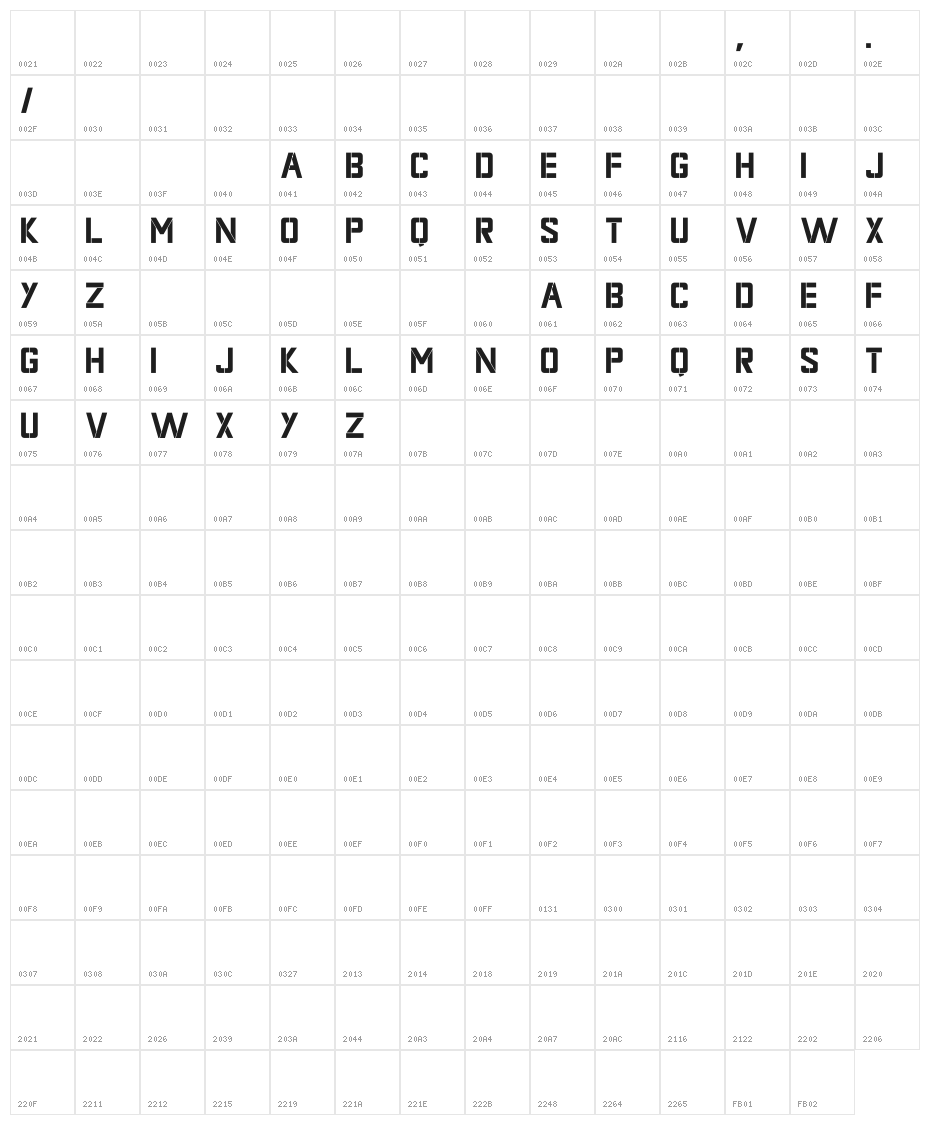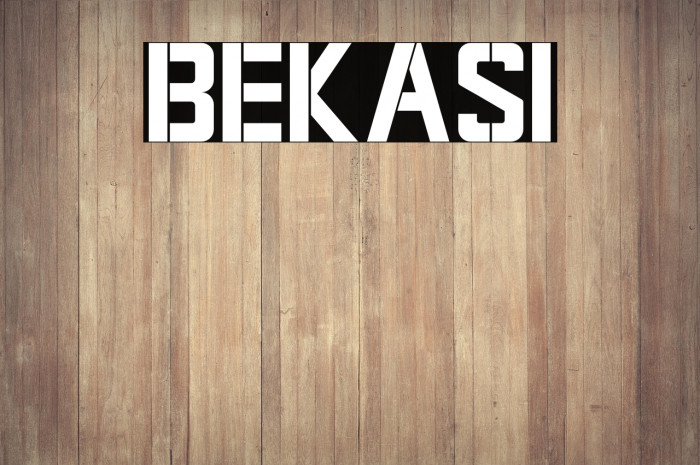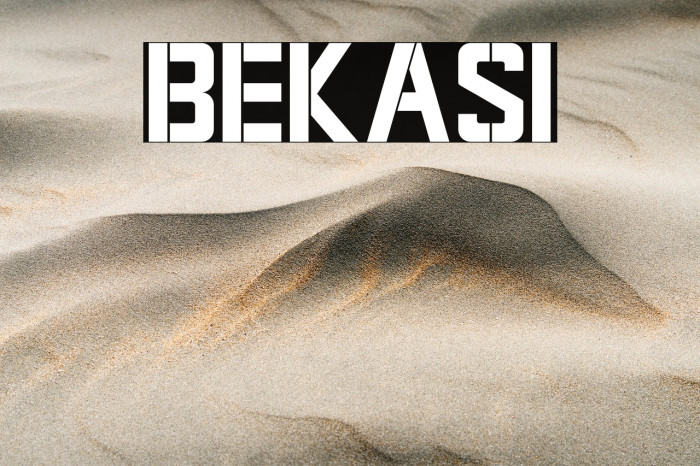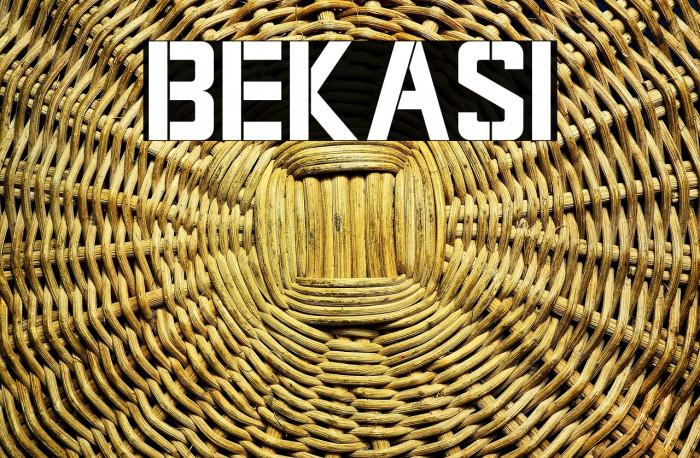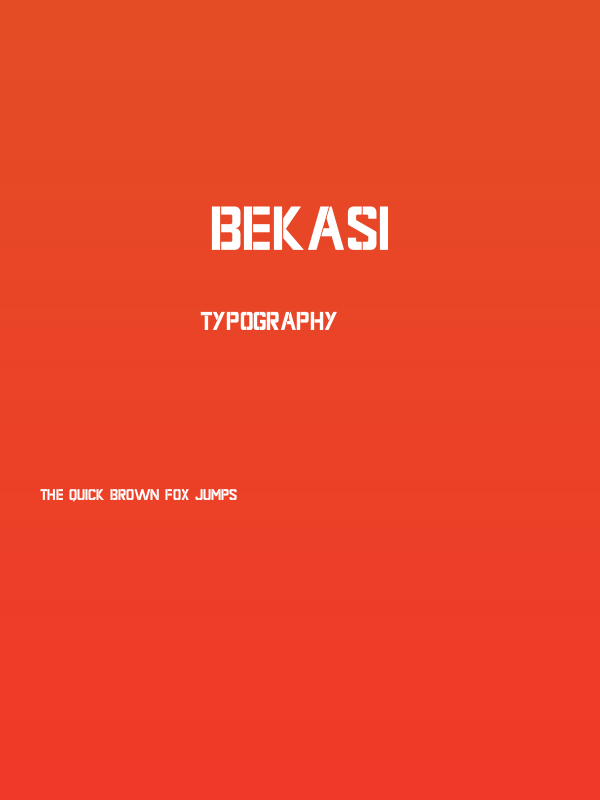
Bekasi Font
Bekasi Description
This font features a bold, geometric design with a modern and industrial aesthetic. The characters are constructed with sharp angles and straight lines, creating a sense of strength and stability. The uppercase letters are particularly striking, with a uniform height and width that gives the text a block-like appearance. The font lacks any curves, emphasizing its rigid and structured form. It is highly legible and makes a strong visual impact, suitable for attention-grabbing headlines or branding materials. The consistent stroke width across all characters contributes to its bold and assertive look.
Proposed ProjectsIdeal for branding, posters, headlines, and any project requiring a strong, modern aesthetic.